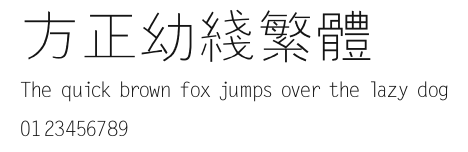
方正幼线繁体 Preview
• Font Name: 方正幼线繁体
• Full Font Name: 方正幼线繁体
About 方正幼线繁体.ttf
方正幼线繁体.ttf is a modern, elegant sans-serif font designed for ultimate readability and visual harmony. Perfect for branding, headlines, web design, and print materials.